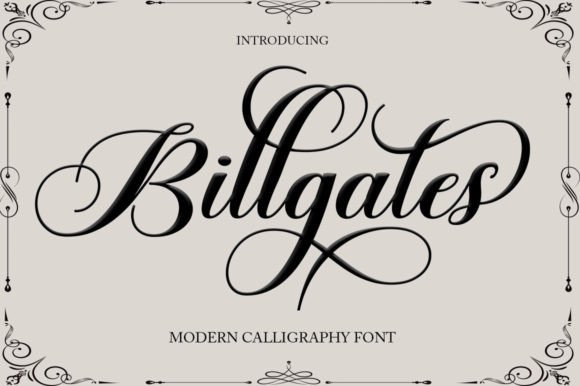
The Billgates Font: A Designer’s Delight
A Personal Review
• ✨ The elegant and refined design, perfect for luxury brands and high-end projects
• ✅ The inclusion of alternative characters, ligatures, and various language support makes it incredibly versatile
• 💫 The OpenType feature allows for manual access to alternative styles and glyph variations, giving you creative control
• 🎨 The font’s ornament touch adds a level of sophistication and elegance to any design
While the Billgates Font is an amazing design tool, there are a few things to keep in mind: 🤔
• ⚠️ The OpenType feature doesn’t function automatically, so you’ll need to access it manually
• ⚠️ Some users may find the font’s elegance and ornamentation too much for certain projects
The Designer Inspiration Behind the Font
The Billgates Font was inspired by the elegance and sophistication of luxury brands. Its creator aimed to design a font that would evoke feelings of refinement and poise. While the font’s origins might be shrouded in mystery, its beauty and functionality are undeniable.
Q: What is the Billgates Font?
A: The Billgates Font is a beautiful script font featuring alternative characters, ligatures, and various language support.
Q: What is the OpenType feature?
A: The OpenType feature allows for manual access to alternative styles and glyph variations, giving you creative control over your design.